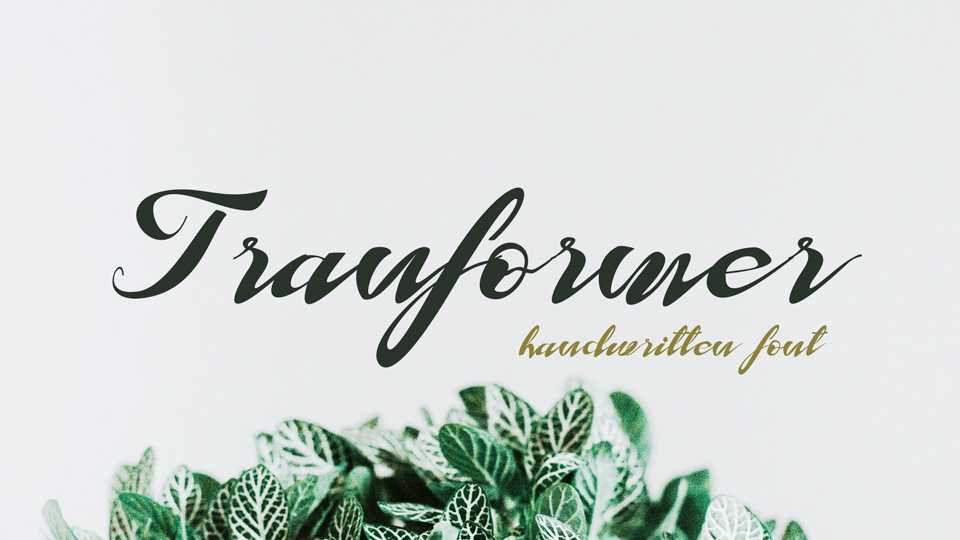
Download Tranformer font, a pretty handwritten script with a free flow and casual style. It’s suitable for crafts, blogs, social media, prints and more.
Designer: Muhammad Akbar